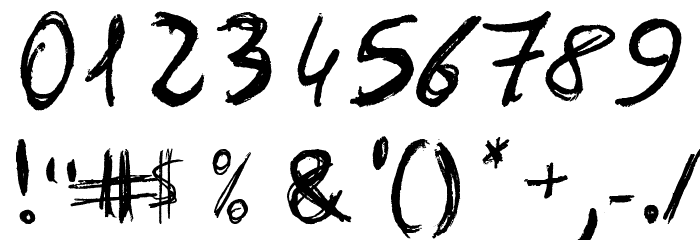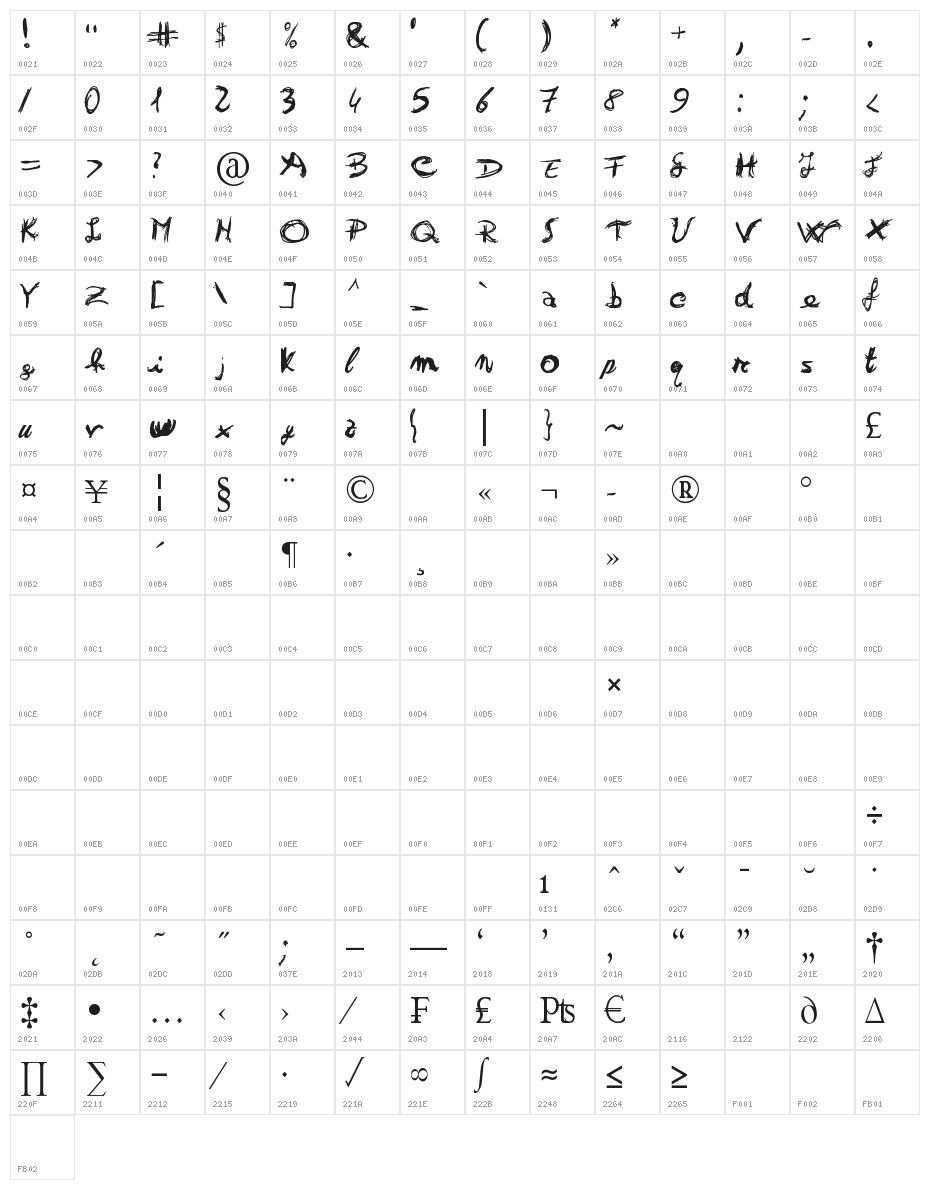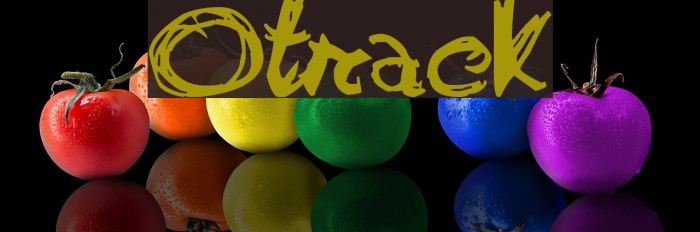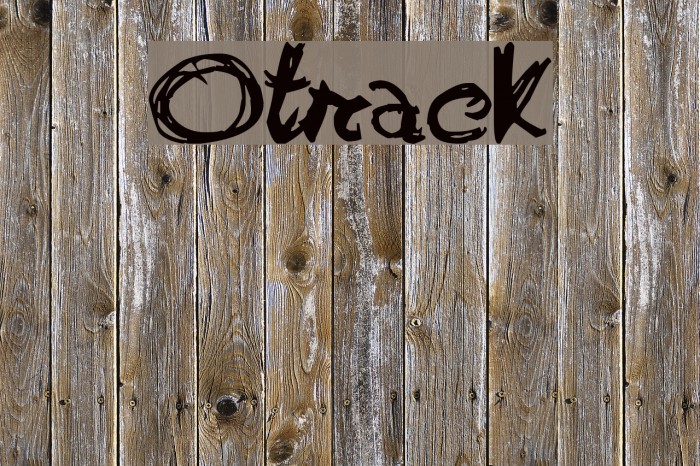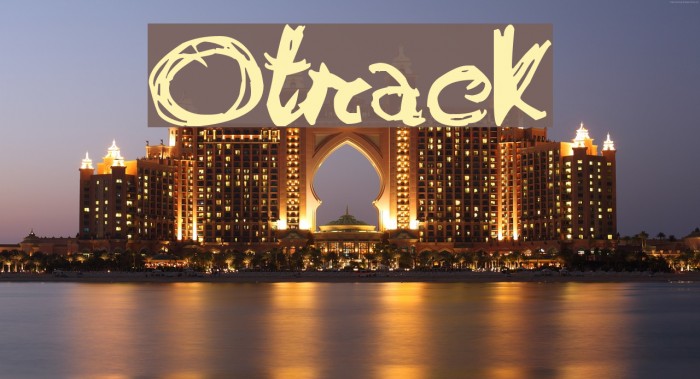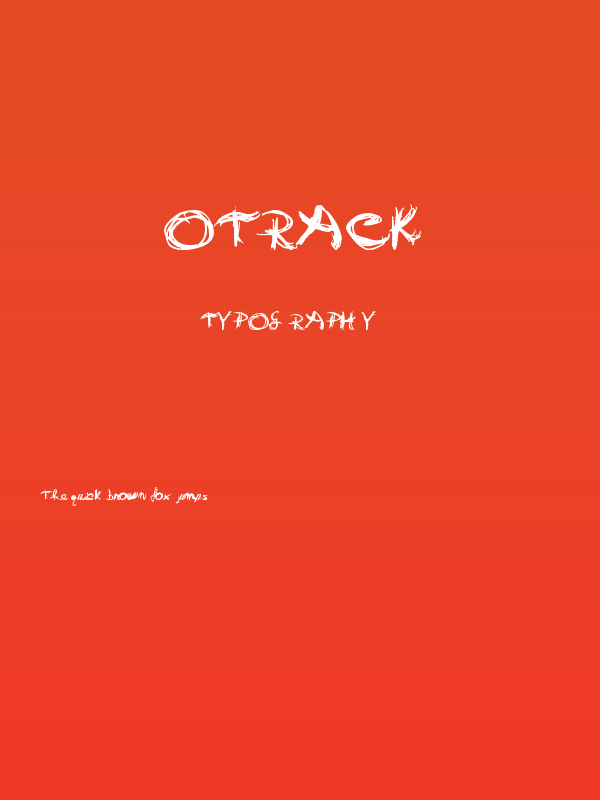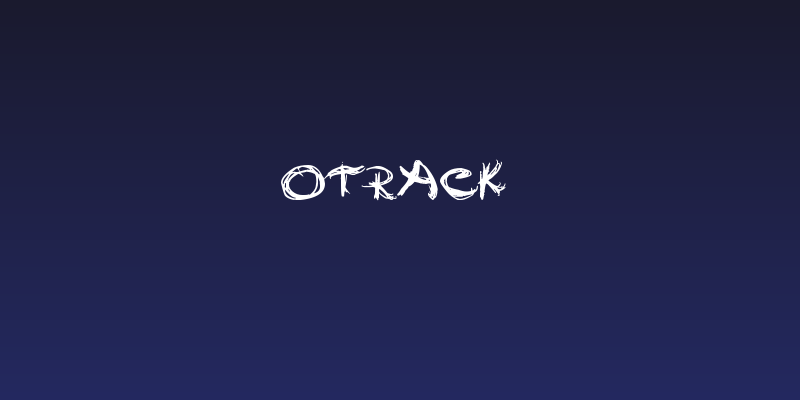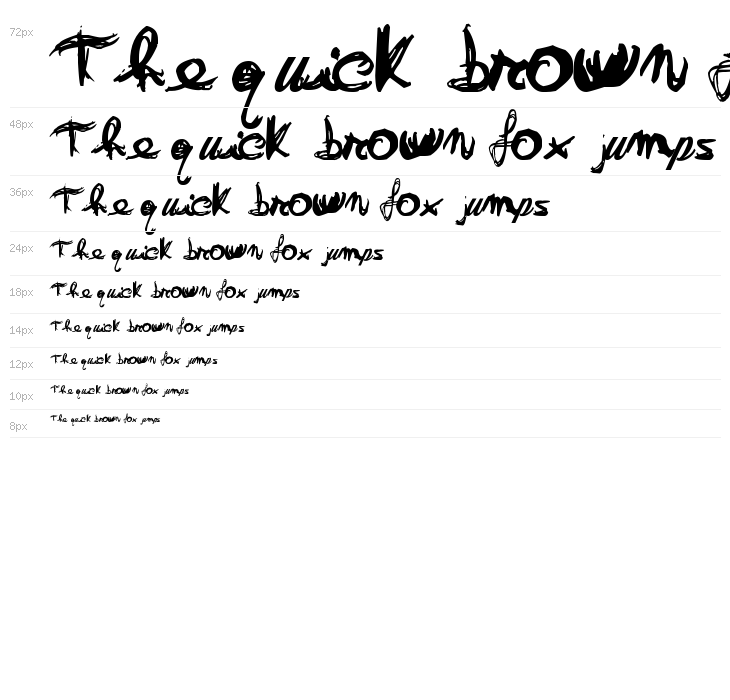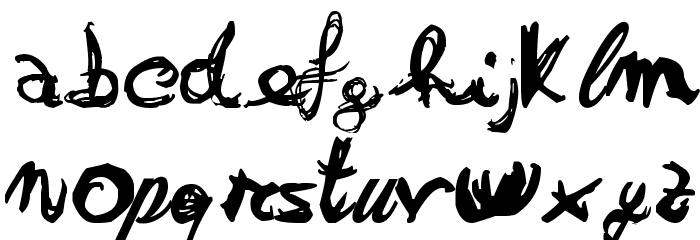
Otrack Font
Otrack Description
This font features a highly expressive and artistic style, characterized by its rough, brush-like strokes and irregular forms. Each letter appears as if it has been painted with a swift, bold motion, giving it a dynamic and energetic feel. The uppercase and lowercase letters maintain a consistent theme of spontaneity, with varying thicknesses and angles that suggest a sense of movement. Numbers and special characters follow the same aesthetic, adding to the font's overall chaotic yet captivating appearance. This font is perfect for projects that require a strong visual impact and a touch of artistic flair.
Overall StyleArtistic, Expressive, Dynamic
Use CaseLogos, Posters, Artistic Projects
Proposed ProjectsIdeal for artistic posters, album covers, graffiti art, and creative branding.